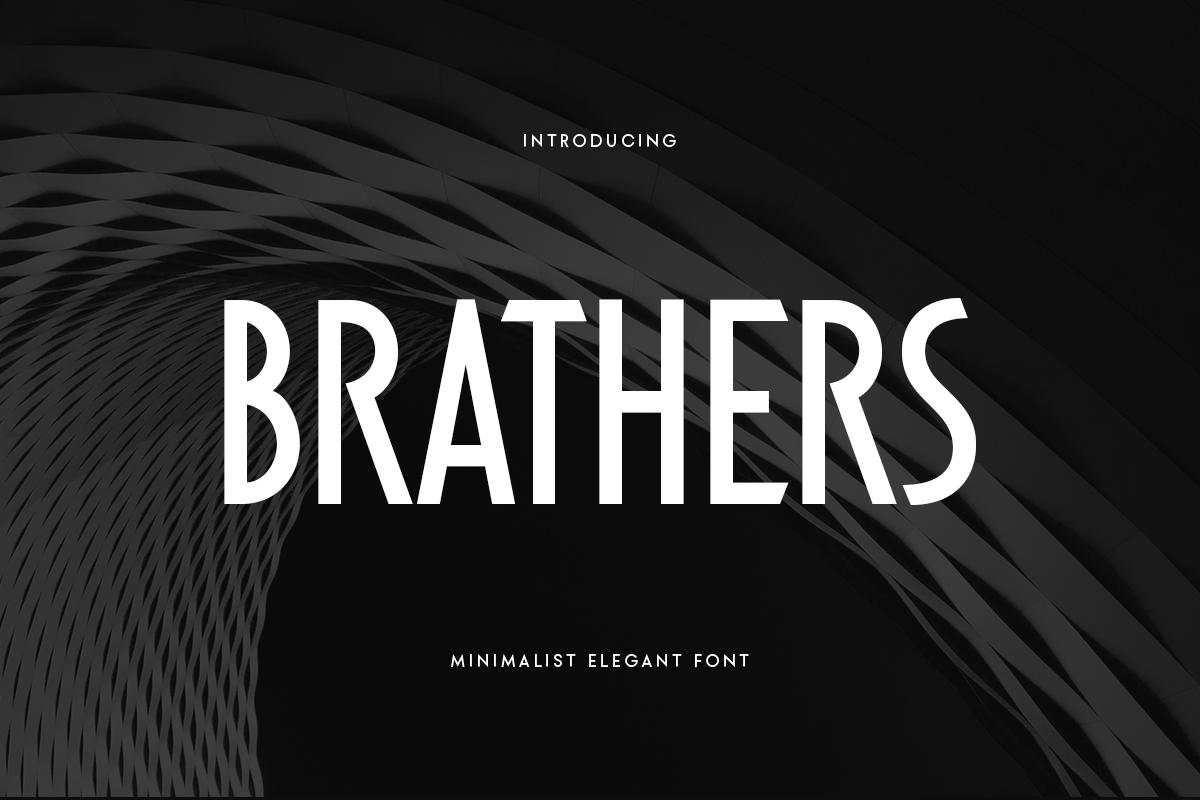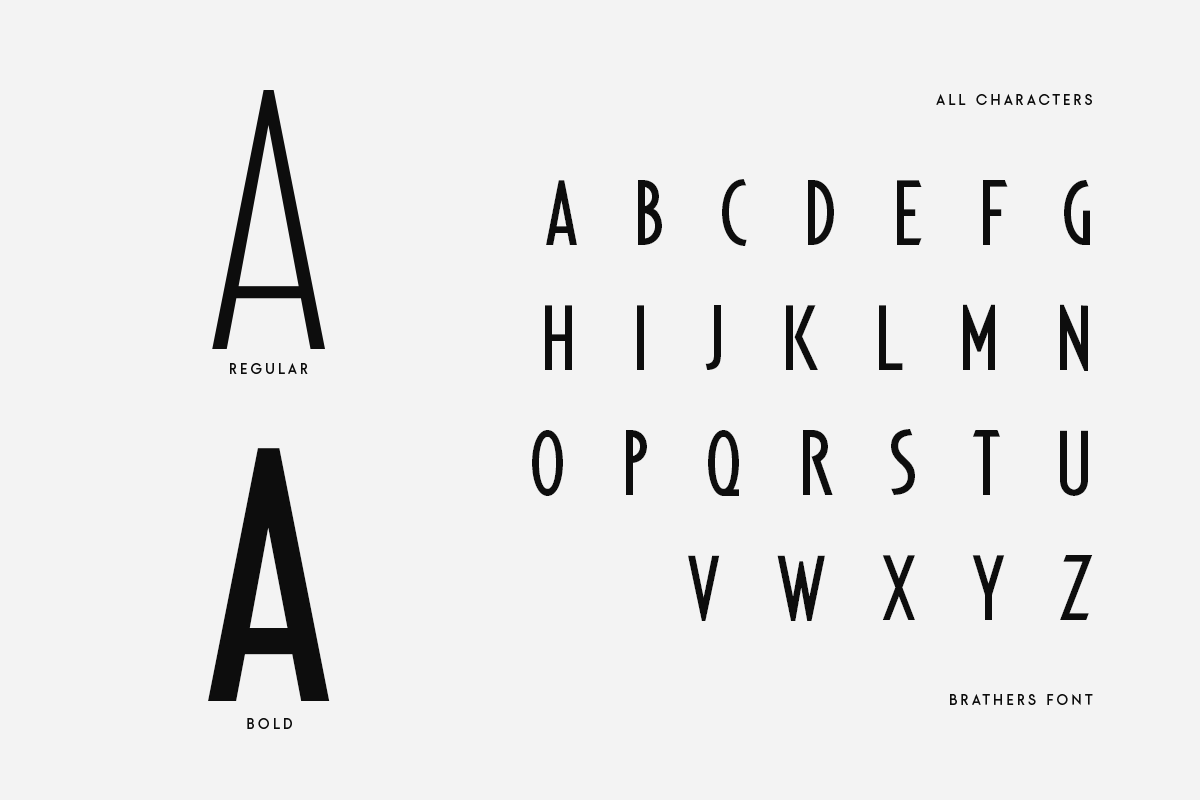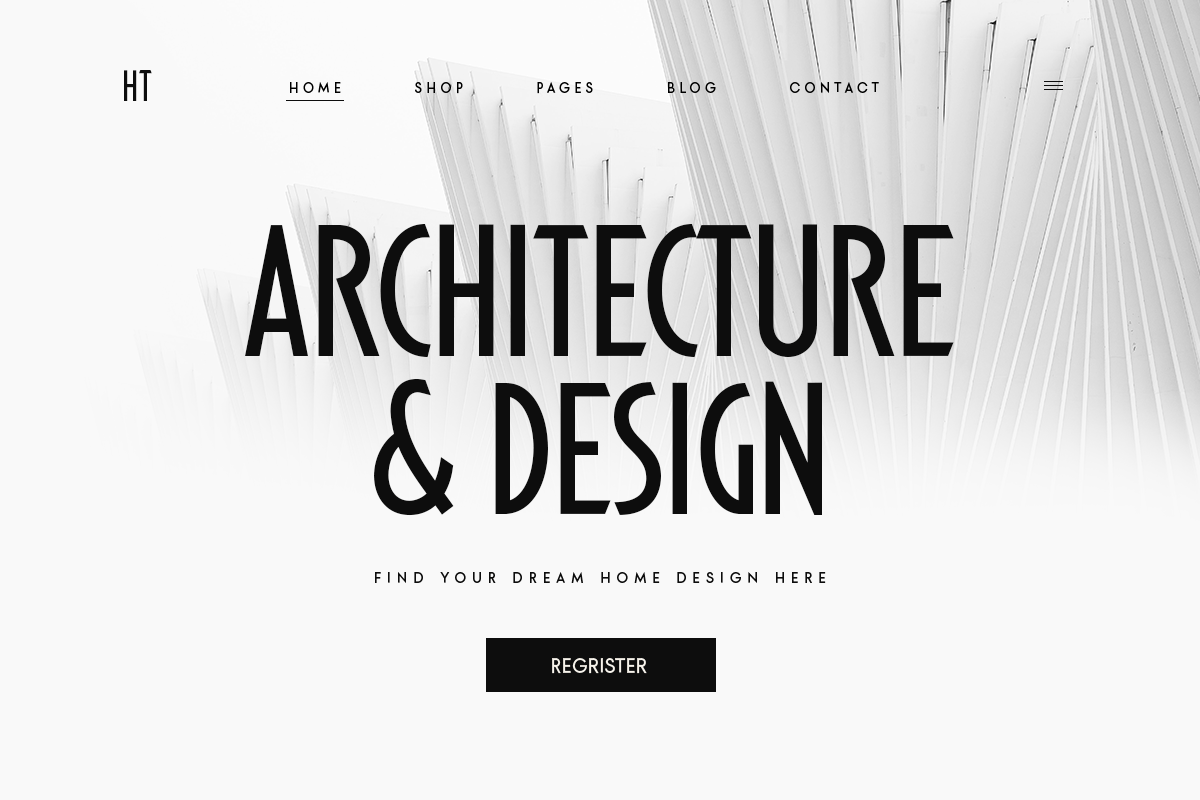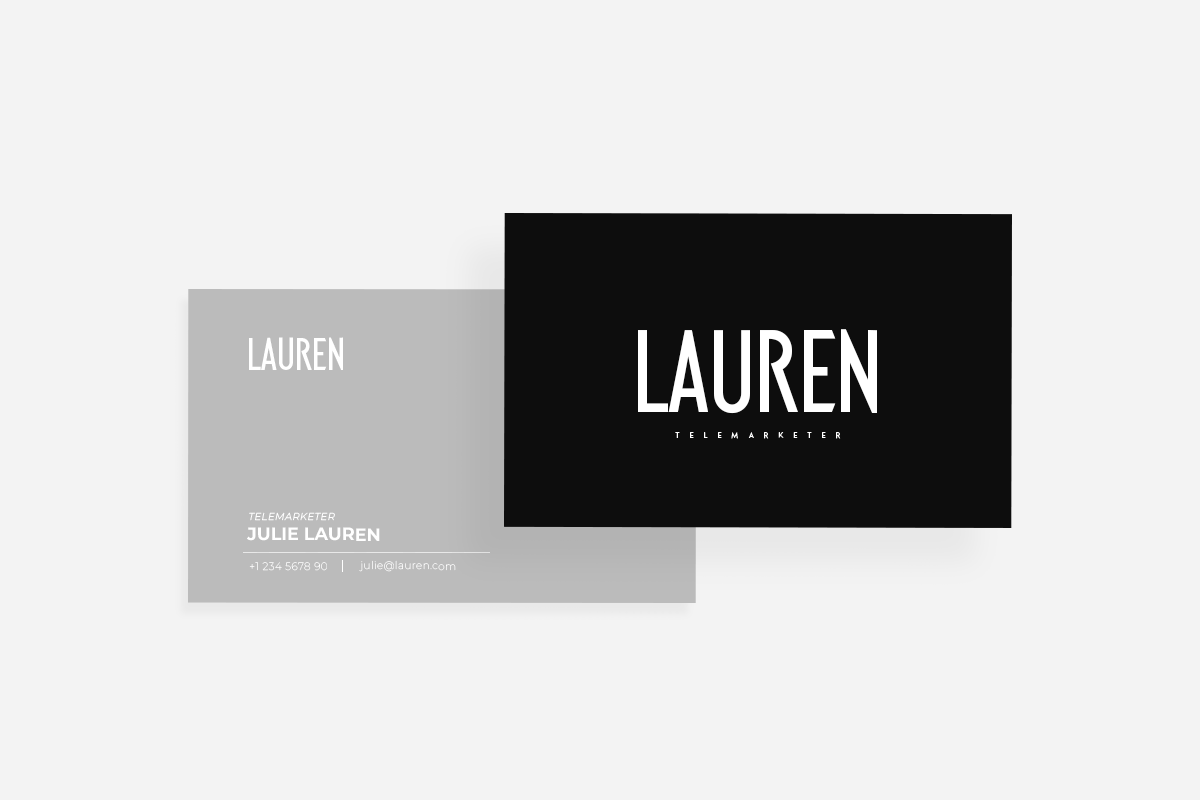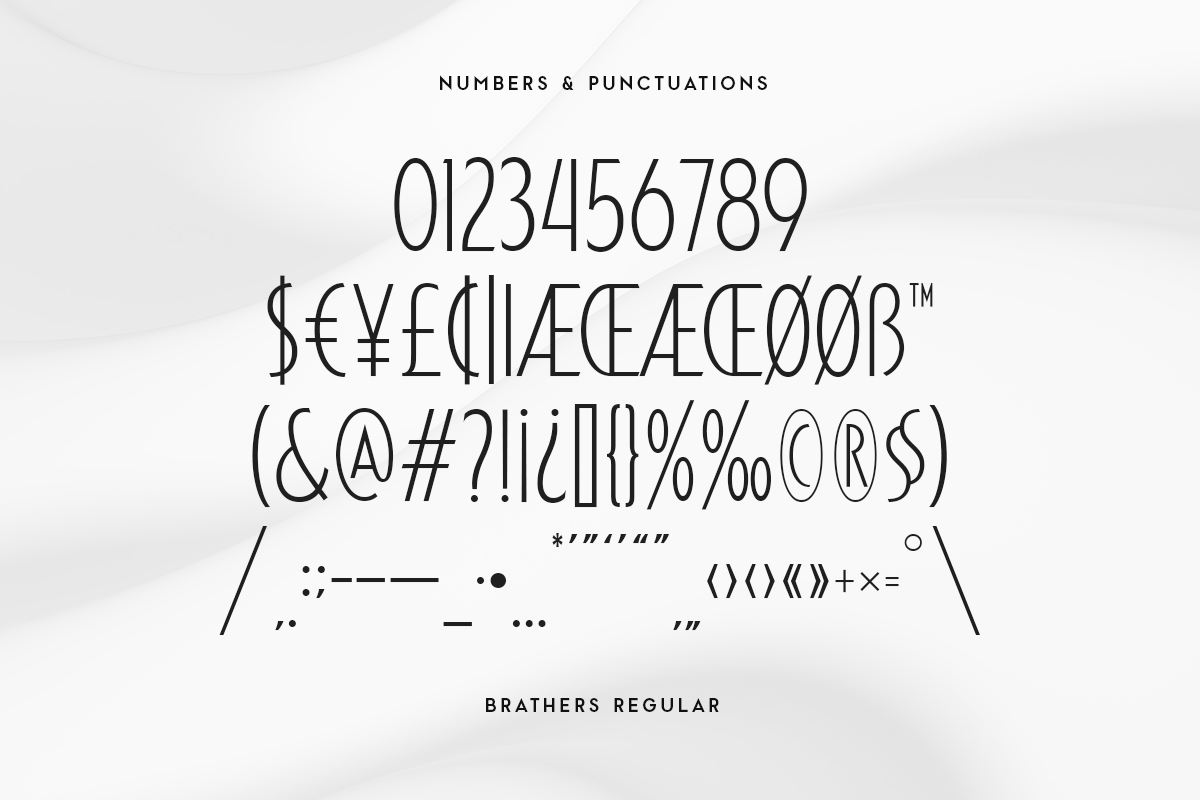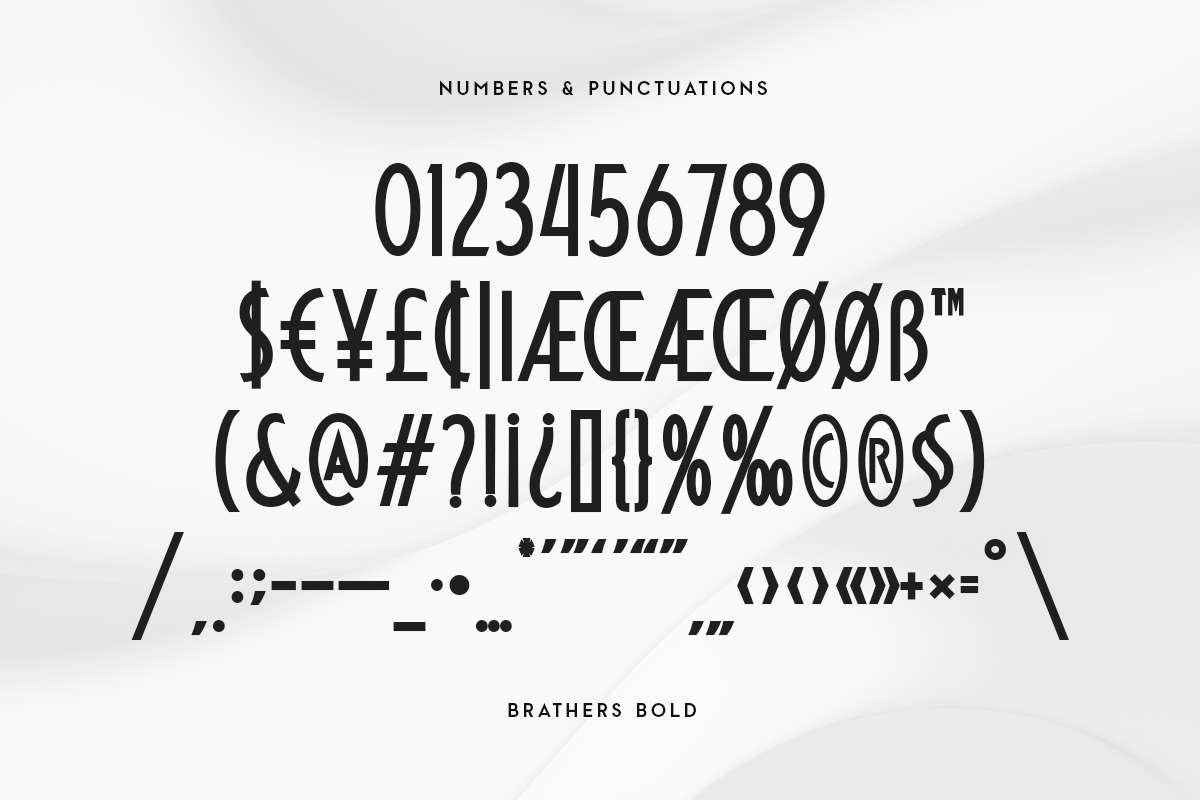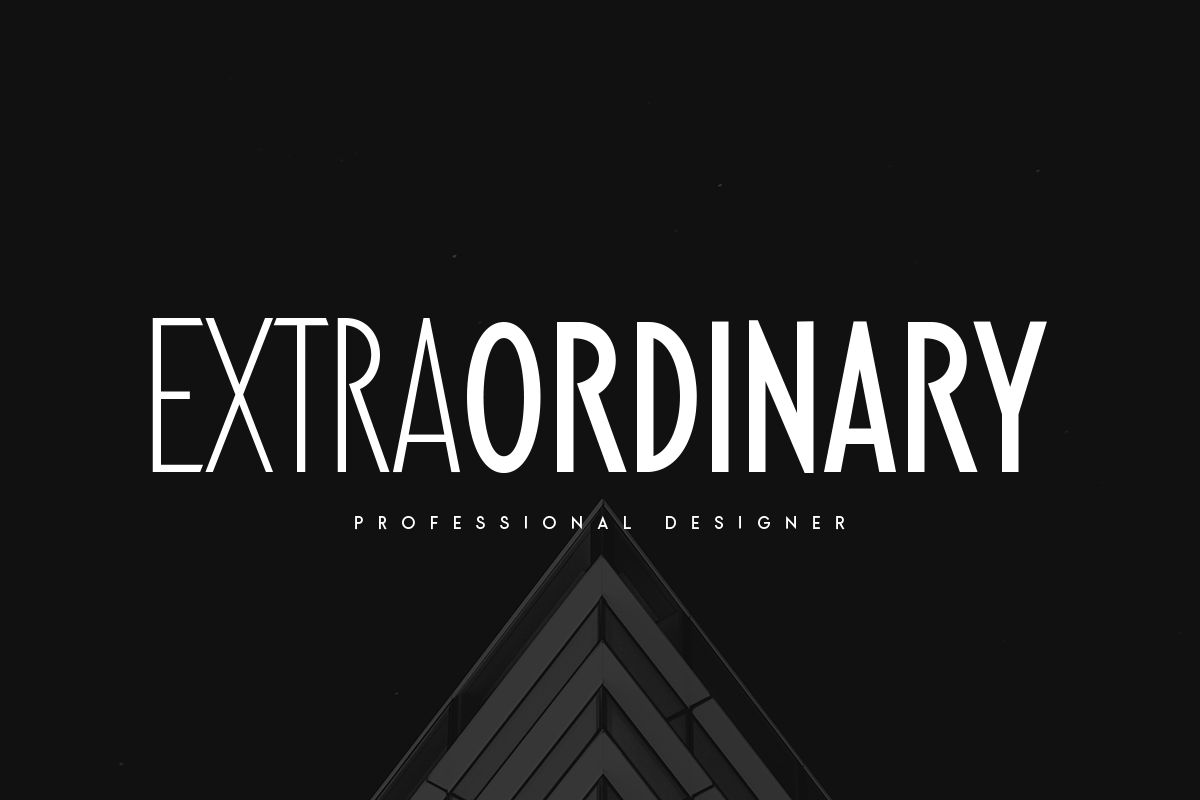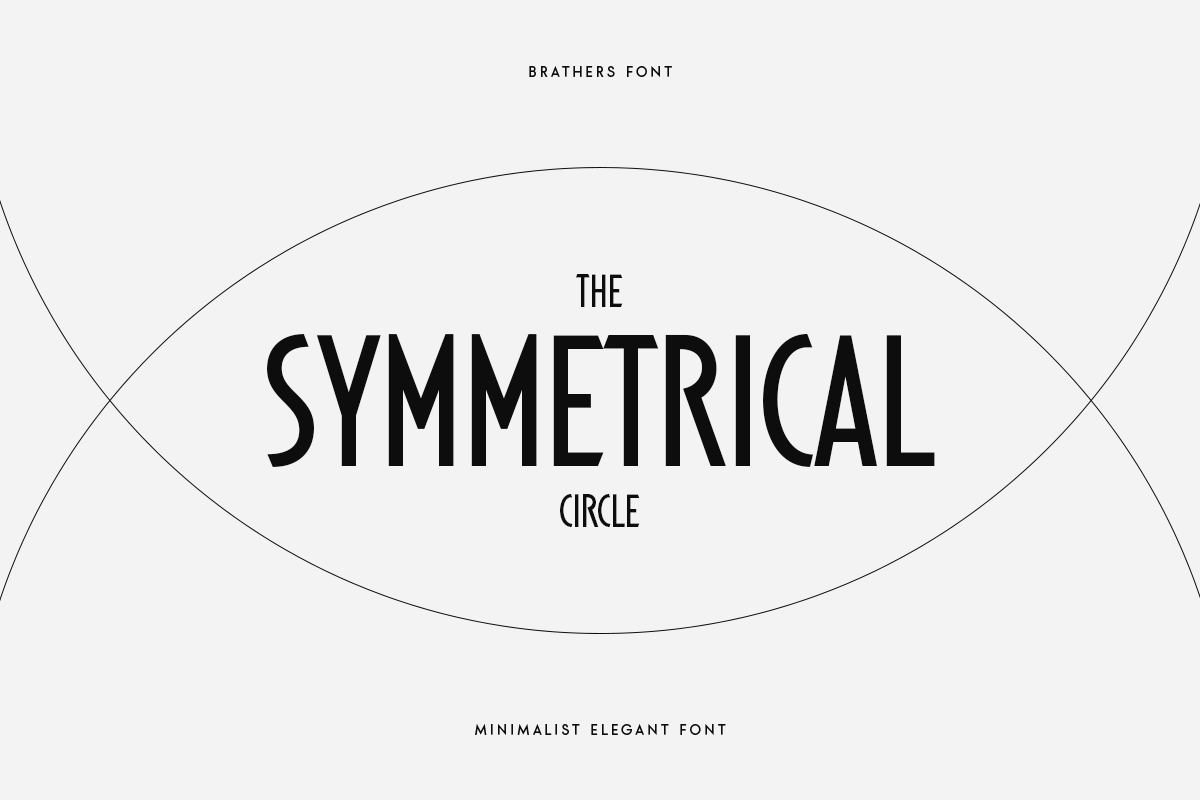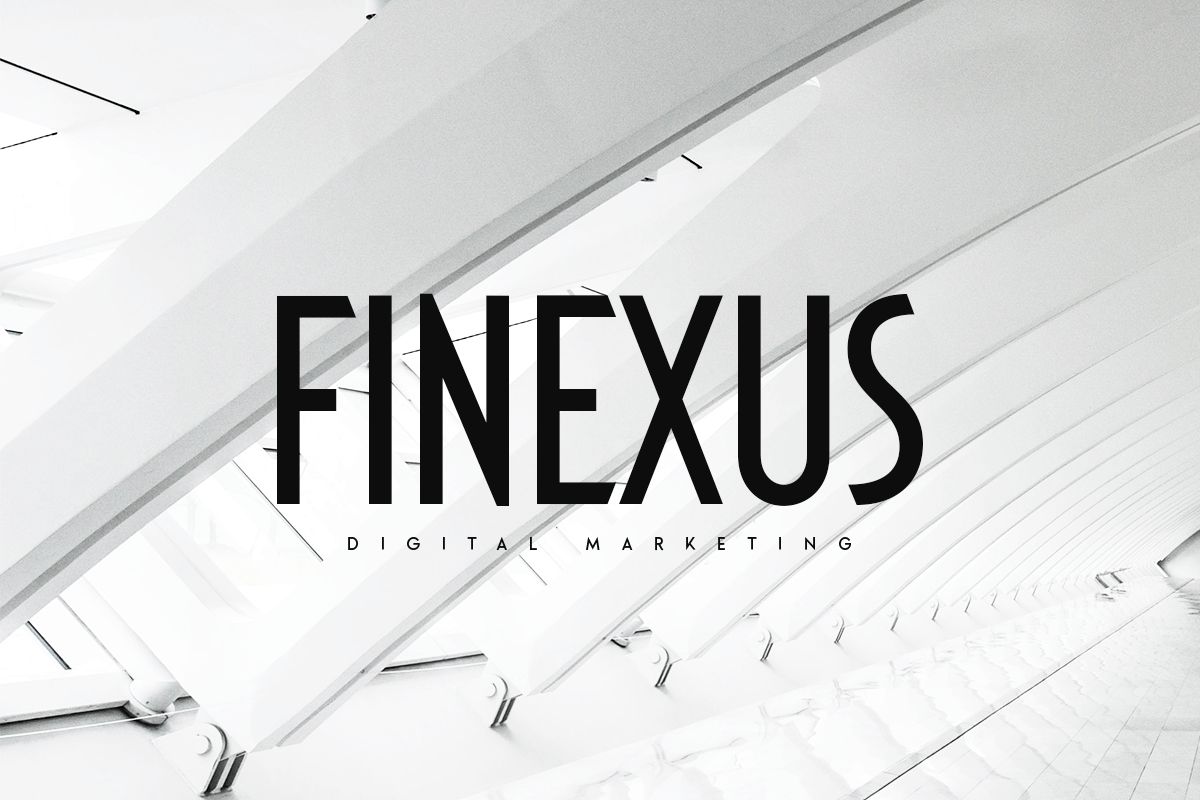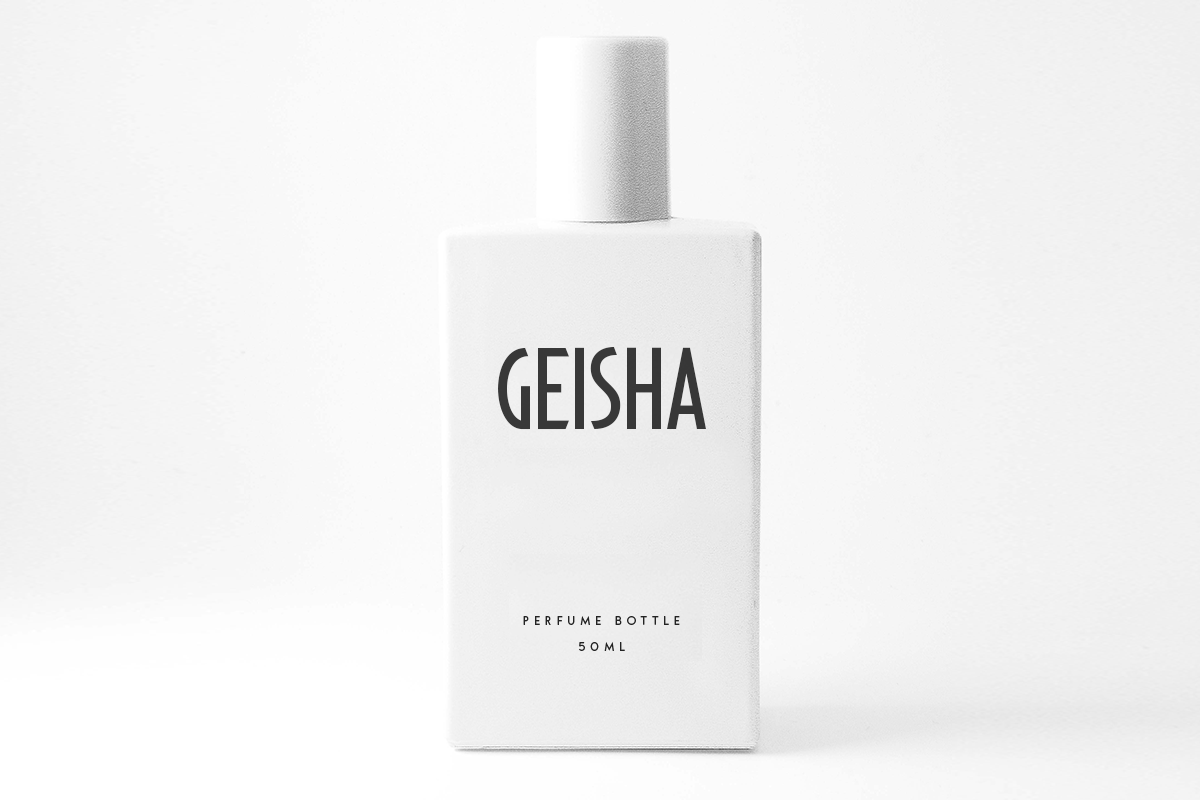
BRATHERS
-Minimalist Elegant Font
BRATHERS is a Minimalist Elegant Sans Serif Font.
An extraordinary style with minimalist and elegant in sans serif , we analyze that any designer or brand owner need to make their brand standout. As our focus that analyze any typeface that helps to leverage any logo design to look more modern and unique. We prepared this font with any unique characters to help you create unlimited variations for your creative needs.